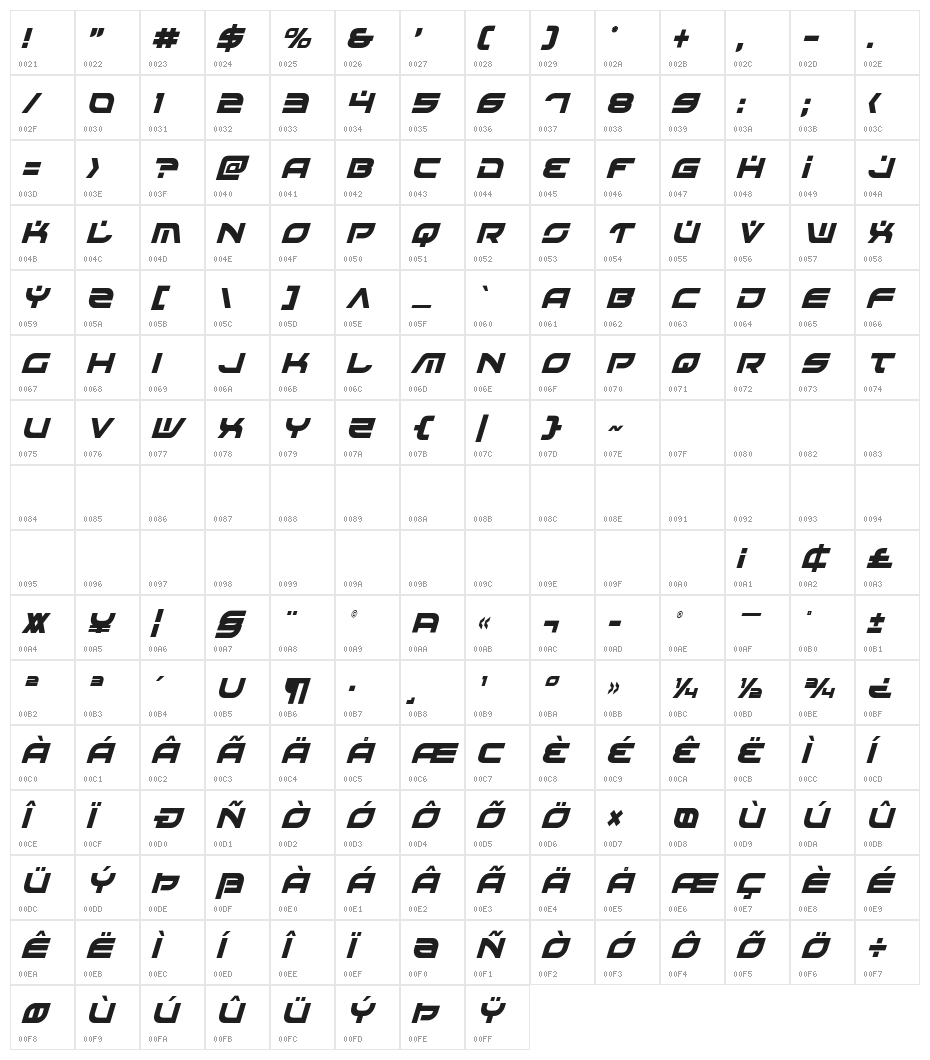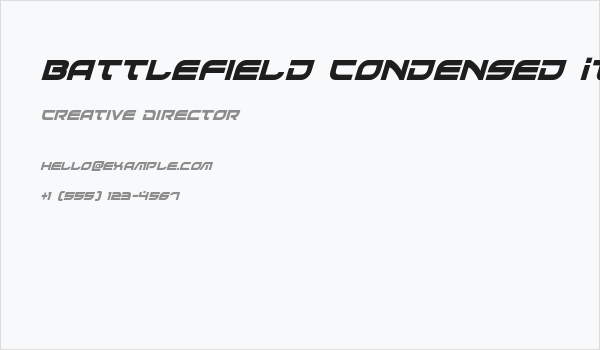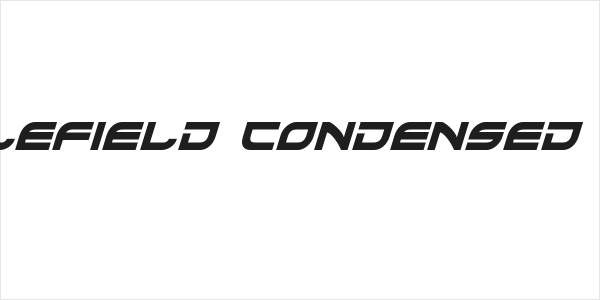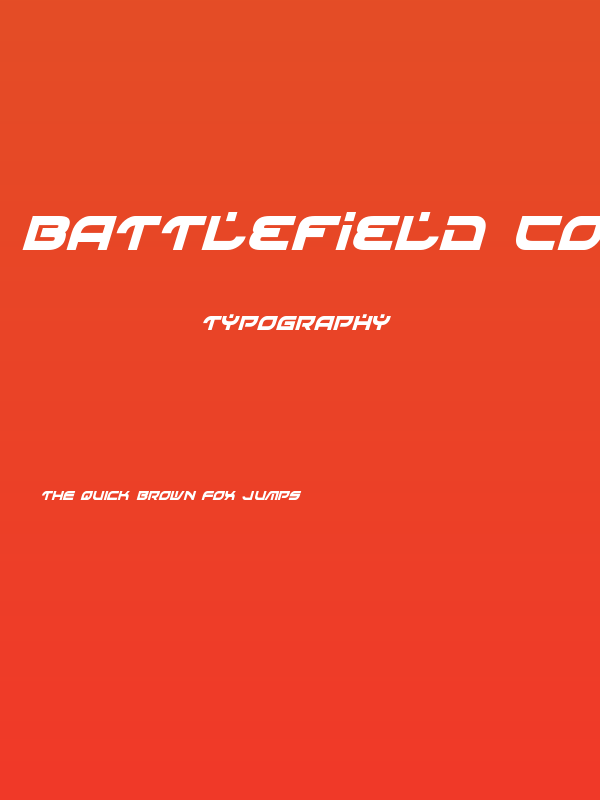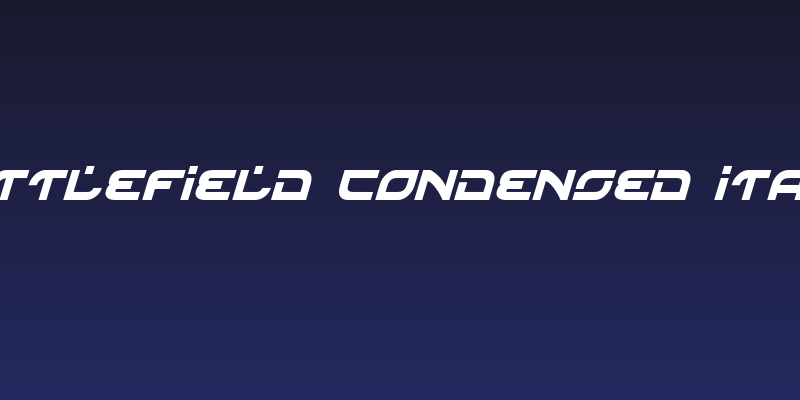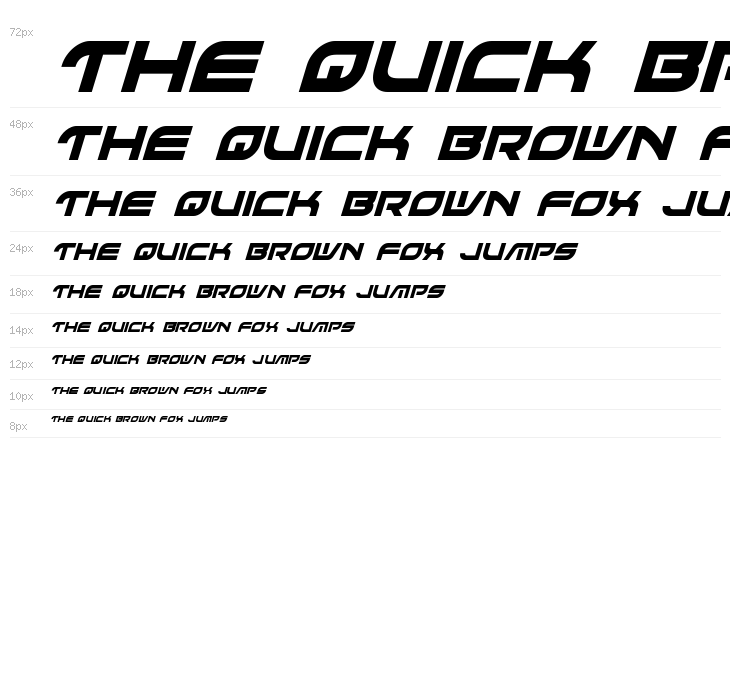
Battlefield Condensed Italic Font
This font exhibits a bold, condensed style with a distinct italic slant, giving it a dynamic and forward-moving appearance. The characters are tightly spaced, enhancing its compact look. The strokes are consistent in thickness, offering a medium contrast that balances readability with a strong visual impact. Its modern design is suitable for projects that require a futuristic or technical feel. The uppercase and lowercase letters maintain a uniform style, while the numerals and special characters are designed to complement the overall aesthetic.
| Proposed Projects | Ideal for use in video game titles, technology branding, sports team logos, and dynamic advertising campaigns. |